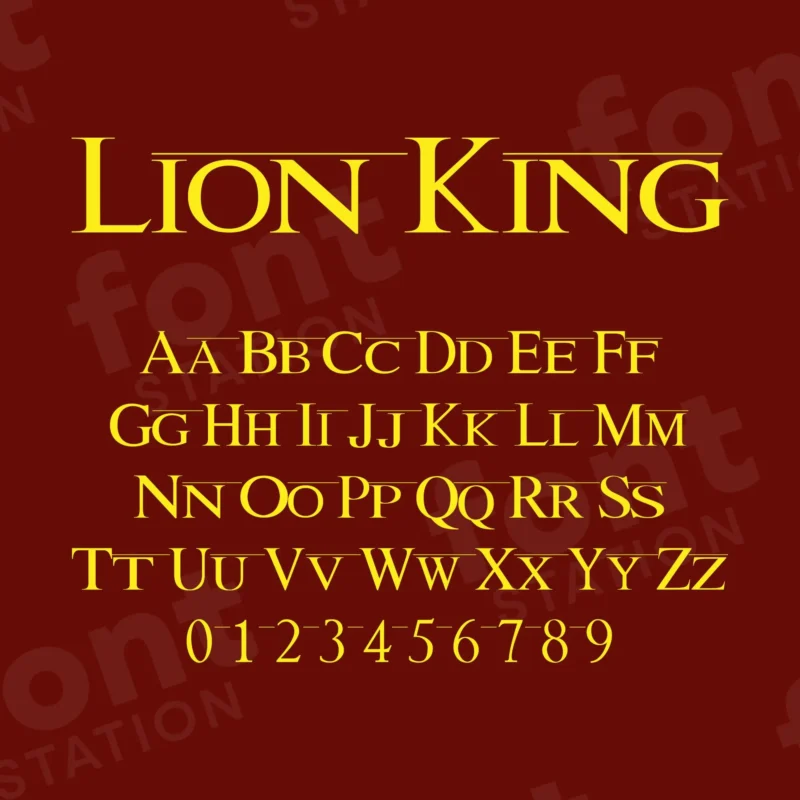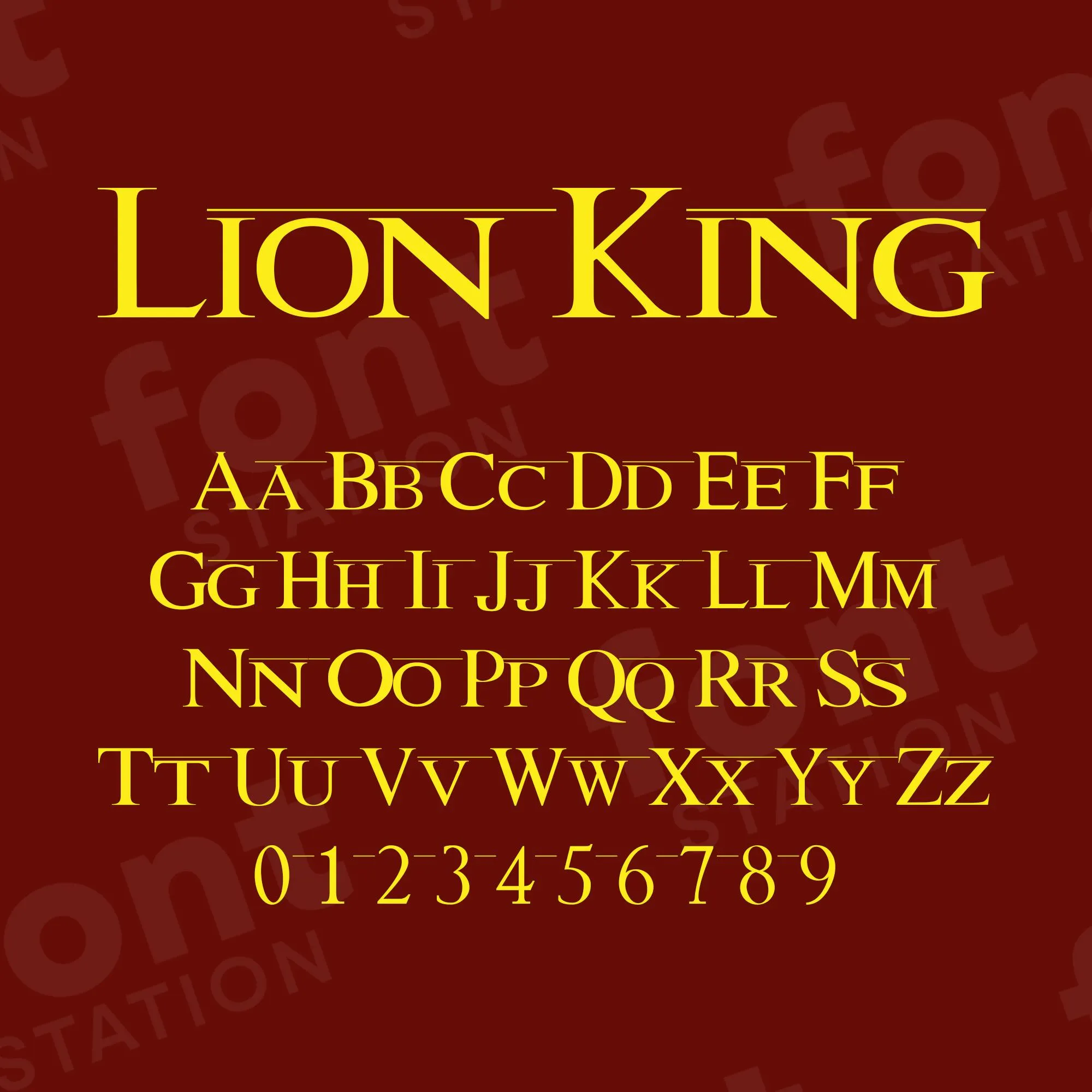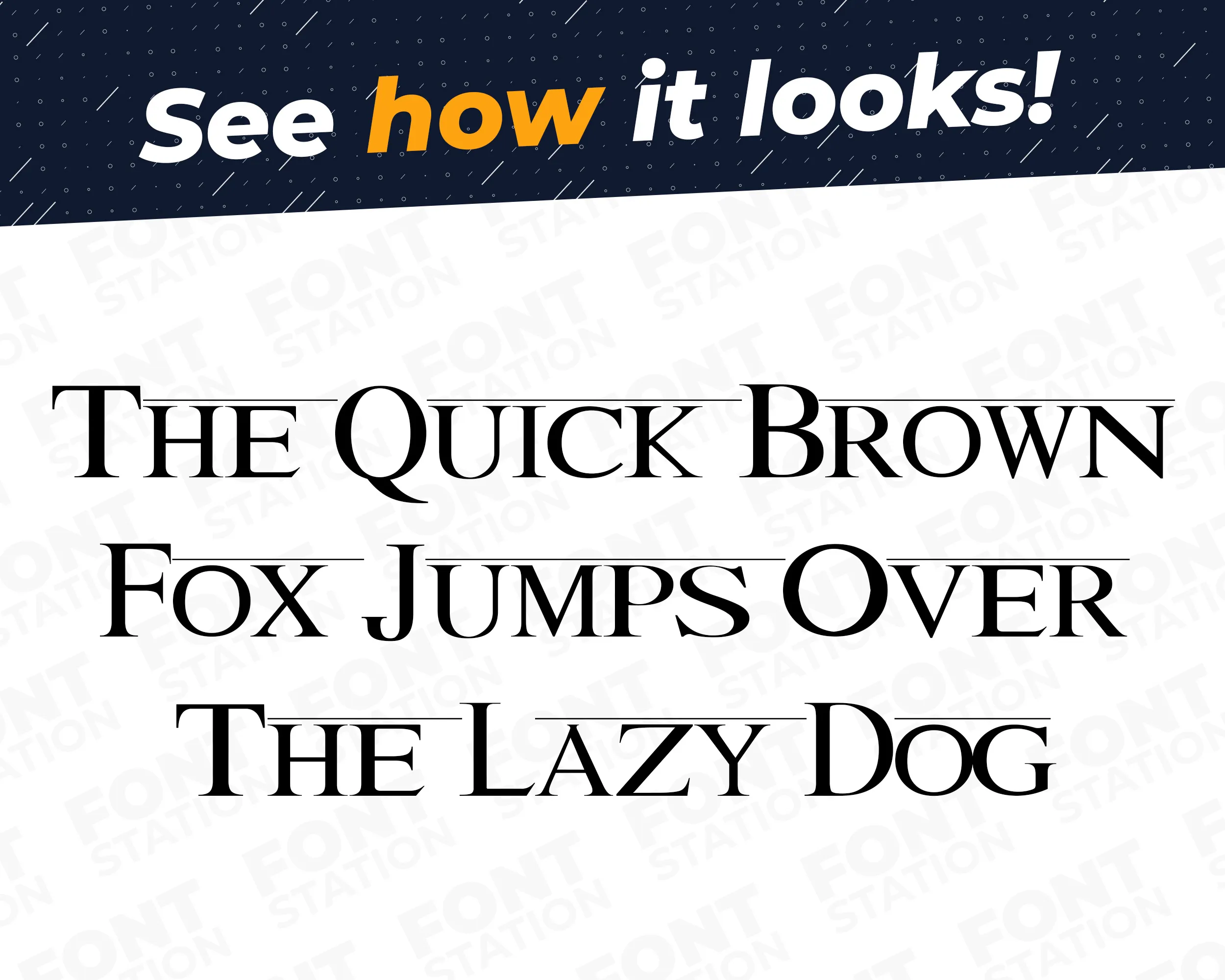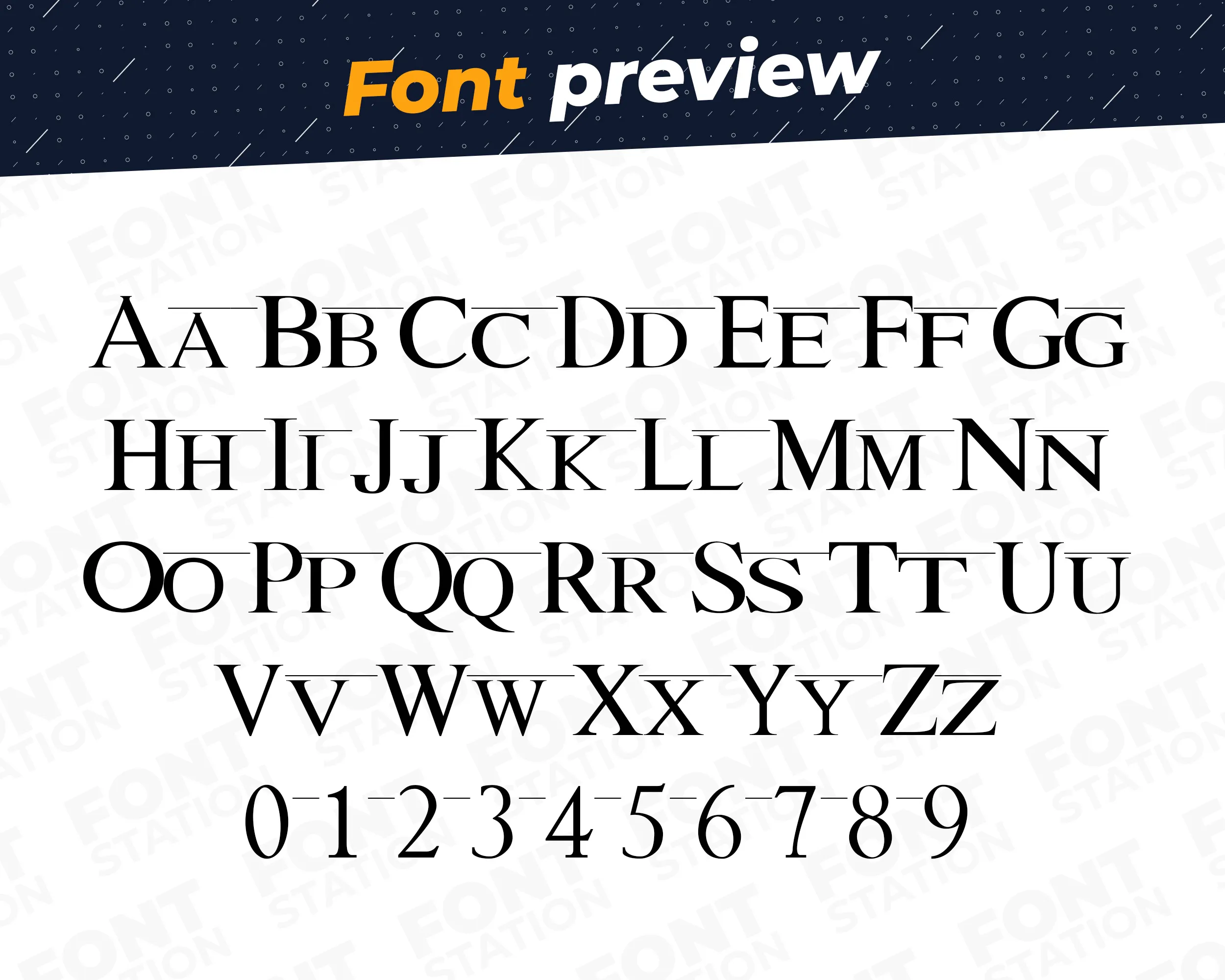
Our Safari King typeface, inspired from The Lion King font
Image showing all characters available in the Lion King font created by FontMaze.
The Lion King Font